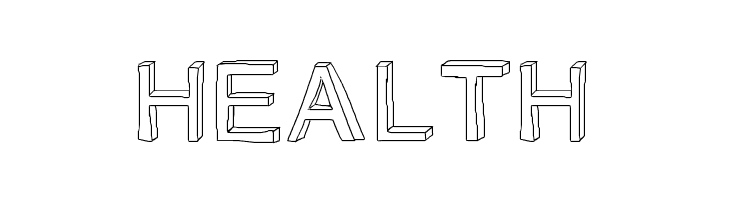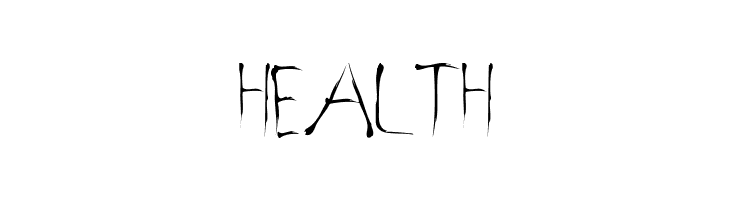
( Fidel Mendoza )
A scratchy, hand-drawn font with a raw, edgy appearance.
( GBstudio - www.gbstudio.com.pl/index_en.html )
A decorative font with a stitched, embroidered appearance.
( Gizem Studipo - Gizem Serifoglu - www.gizemstudio.com )
A sketch-style font with double-line outlines for a hand-drawn effect.
( Here Be Monsters - monsterswithin.com )
A sketchy, hand-drawn font with a playful and artistic style.
( Jacob Toole )
An eerie, hand-drawn font with sharp, elongated strokes and dramatic contrast.
( James Stone - www.behance.net/subversivetype )
A bold, glitch-inspired font with a fragmented, digital appearance.
( Jen Jones - www.jenjonesfonts.com )
A bold, sketch-style font with a hand-drawn, textured appearance.
( Lauren Harrison - laurenharrison.org )
A hand-drawn, sketch-like font with an edgy, skeletal appearance.
( M-Dfonts - Martin Steiner - photo.design-studio.sk )
A bold, sketch-style font with diagonal hatching for a textured look.
( Marcelo Magalhães Pereira - www.marcelomagalhaes.net )
A playful, sketch-like font with a hand-drawn, artistic feel.